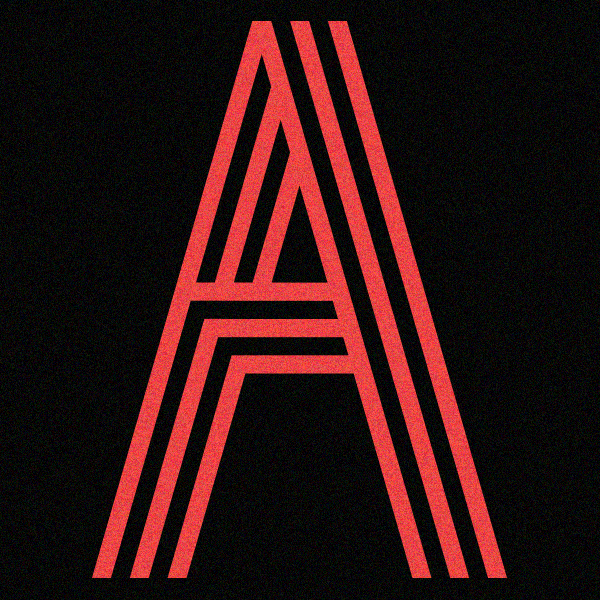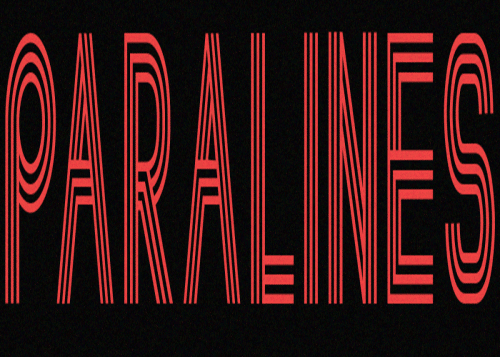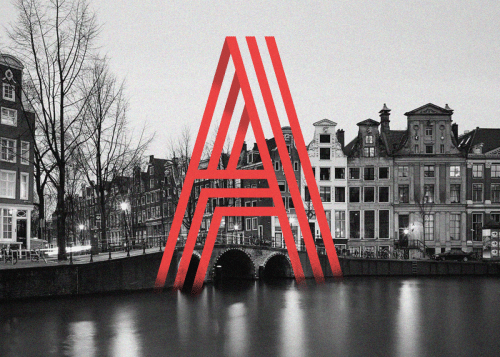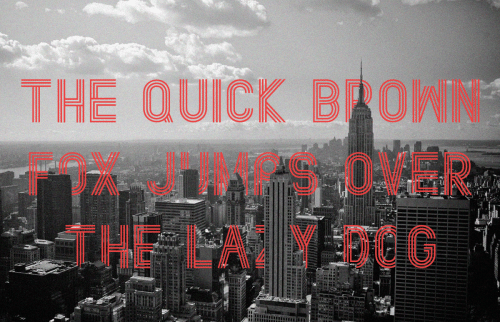
Paralines Font
Paralines is a free font with a retro futuristic vibe to it. Inspiration for this came from both modern day fonts and retro design in the past.